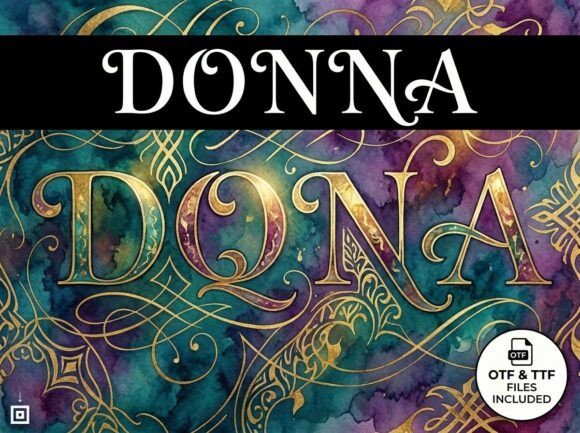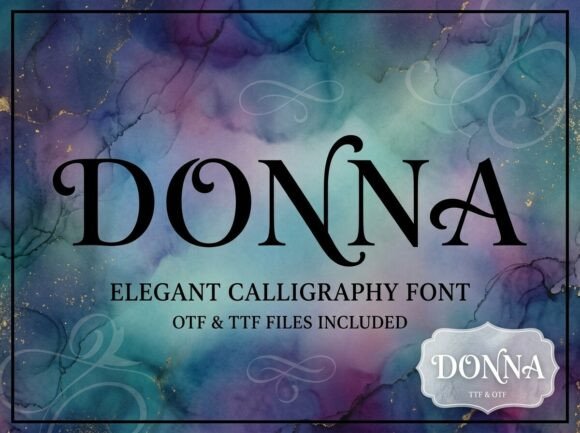
Exude Timeless Grace with Donna: The Ultimate Calligraphy Font for Luxury Branding
In the world of typography, few fonts capture the essence of elegance and sophistication as effortlessly as Donna. This stunning calligraphy font is designed to evoke a sense of timeless grace, making it the perfect choice for designers and crafters seeking to add a touch of luxury to their projects. With its fluid, fashionable, and precision-crafted letterforms, Donna is sure to elevate your branding, stationery, editorial layouts, and social media headers to new heights.
The Art of Elegance: Donna’s Unique Characteristics
Donna’s design is characterized by sweeping, high-contrast letterforms that exude a sense of refinement and poise. The font features rhythmic, elongated swashes that add a touch of drama and flair, while the elegant terminal loops showcase the precision and skill of a master penman. The formal structural weight and prestigious personality of Donna make it an ideal choice for projects that demand a sense of sophistication and glamour.
Luxury Branding and Beyond: Perfect Use Cases for Donna
Donna’s versatility and elegance make it suitable for a wide range of applications, including:
- Independent luxury boutique branding: Create a lasting impression with Donna’s sophisticated and refined letterforms, perfect for high-end fashion, jewelry, or lifestyle brands.
- High-end event stationery: Make your wedding invitations, party invites, or corporate event materials stand out with Donna’s elegant and precise typography.
- Professional editorial layouts: Add a touch of sophistication to your magazine, newspaper, or online publication with Donna’s classic and refined font style.
- High-impact social media headers: Elevate your social media presence with Donna’s chic and composed font, perfect for creating eye-catching headers and graphics.
Why Choose Donna for Your Design Projects?
With Donna, you can:
- Elevate your brand’s luxury appeal: Donna’s sophisticated and elegant design will instantly convey a sense of high-end quality and refinement.
- Stand out from the crowd: Donna’s unique and distinctive letterforms will set your project apart from others, making it more memorable and impactful.
- Enhance readability and legibility: Donna’s clear and precise typography ensures that your message is conveyed with clarity and ease, even at small font sizes.
Tips and Tricks for Working with Donna
To get the most out of Donna, consider the following tips:
- Pair Donna with complementary fonts: Combine Donna with serif or sans-serif fonts to create a harmonious and balanced typography scheme.
- Experiment with swashes and ligatures: Take advantage of Donna’s elegant swashes and ligatures to add a touch of elegance and sophistication to your design.
- Pay attention to font sizes and weights: Use Donna’s various font sizes and weights to create visual hierarchy and emphasize key elements in your design.
In conclusion, Donna is a truly exceptional calligraphy font that embodies the essence of timeless elegance and sophistication. With its precision-crafted letterforms, rhythmic swashes, and elegant terminal loops, Donna is the perfect choice for designers and crafters seeking to add a touch of luxury to their projects. Whether you’re working on luxury branding, high-end event stationery, professional editorial layouts, or social media headers, Donna is sure to exceed your expectations and leave a lasting impression.